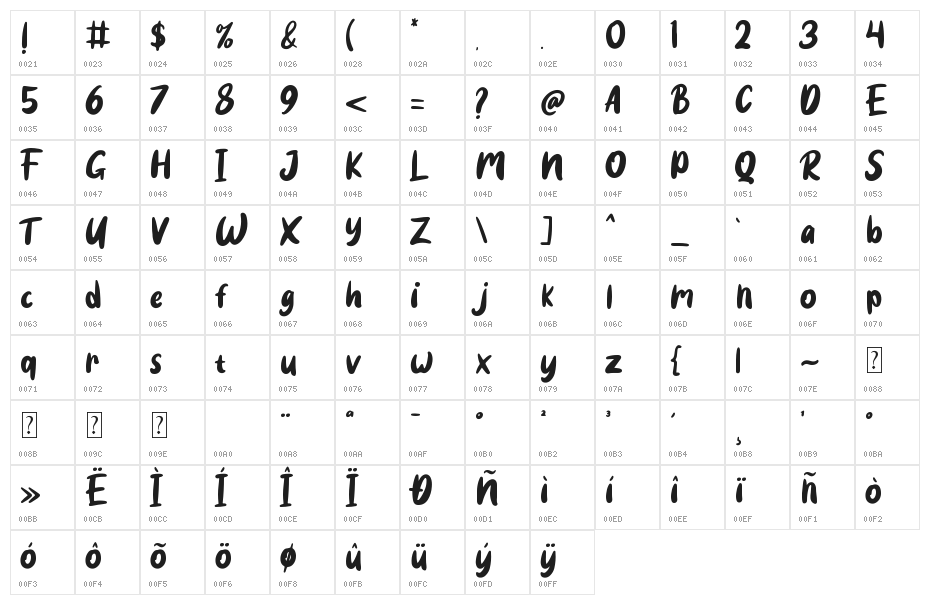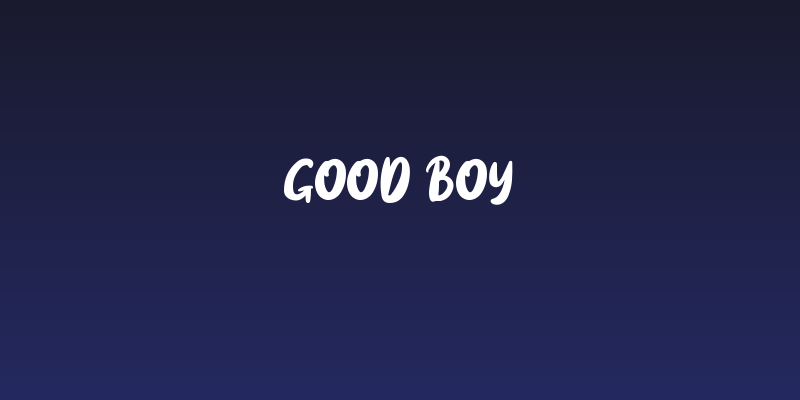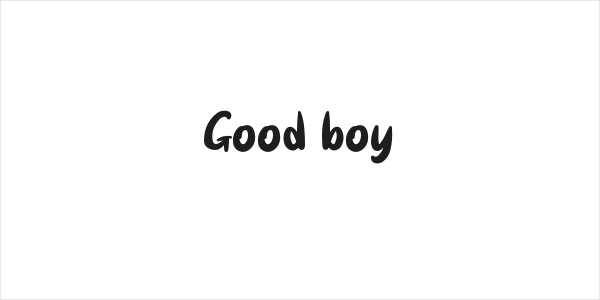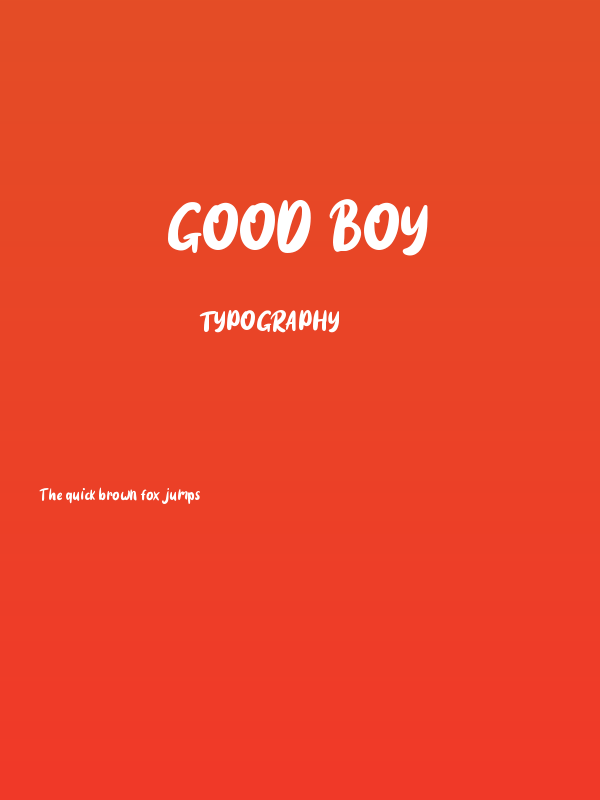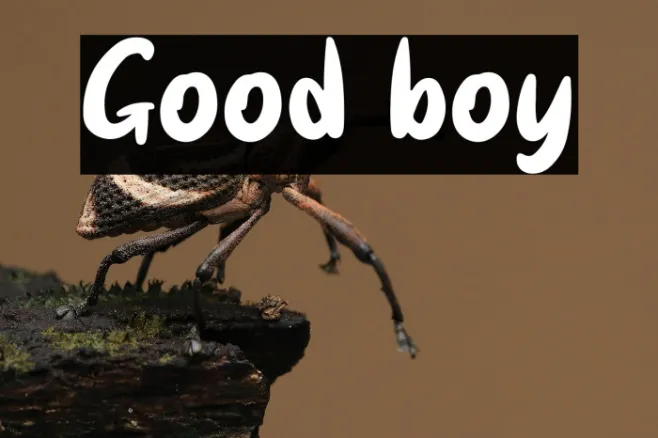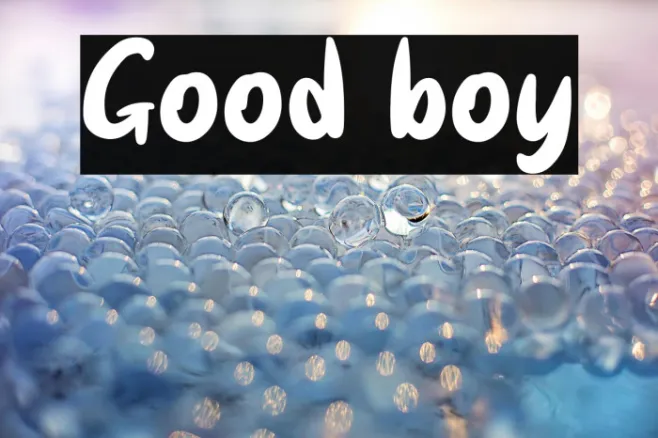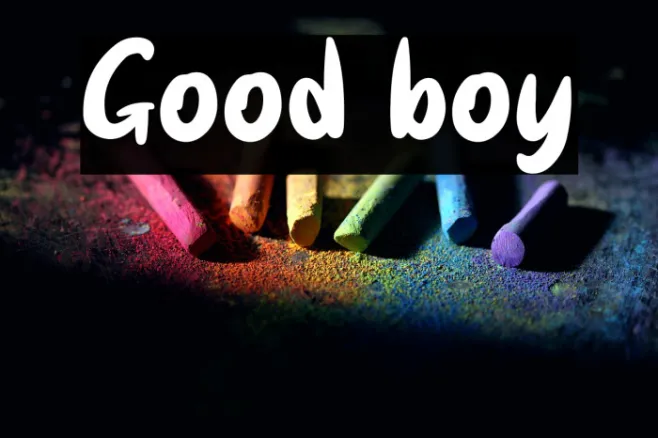
Good boy Font
Good boy Description
This playful and bold handwritten font exudes a sense of fun and creativity. The characters are rounded and slightly irregular, giving them a casual and friendly appearance. The strokes are thick and consistent, providing a strong visual impact. The uppercase and lowercase letters maintain a cohesive style, while the numerals and special characters complement the overall design. This font is perfect for projects that require a personal touch or a lively, informal vibe. Its unique style makes it suitable for a variety of creative applications.
| Overall Style | Playful, Casual |
| Proposed Projects | Ideal for greeting cards, children's books, playful branding, and social media graphics. |